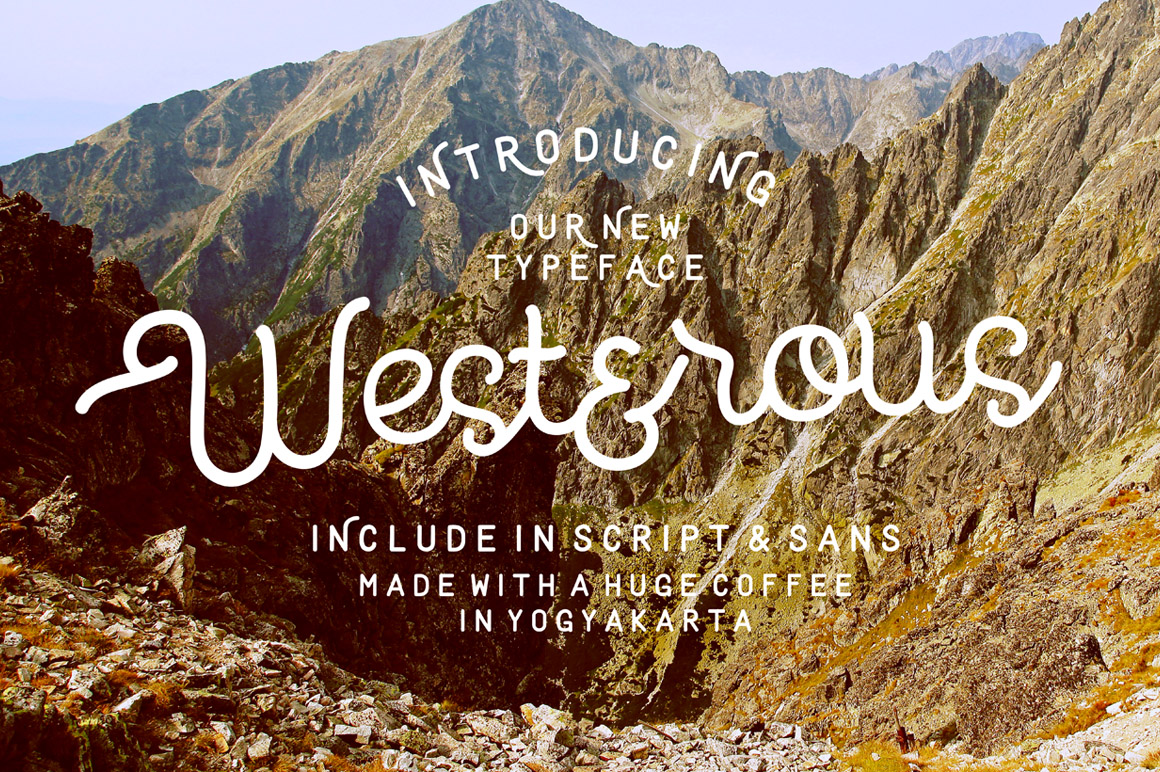
Westerous Script Font
Westerous is a vintage typeface with a customible style it’s perfect for latterhead, vintage apparel design, headline, logotype, poster, card, and etc.
| Classification: | Calligraphy Fonts, Handwritten Fonts, Script Fonts |